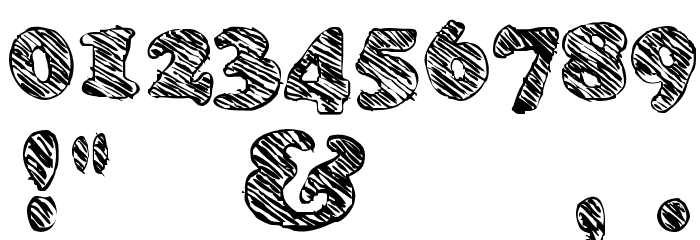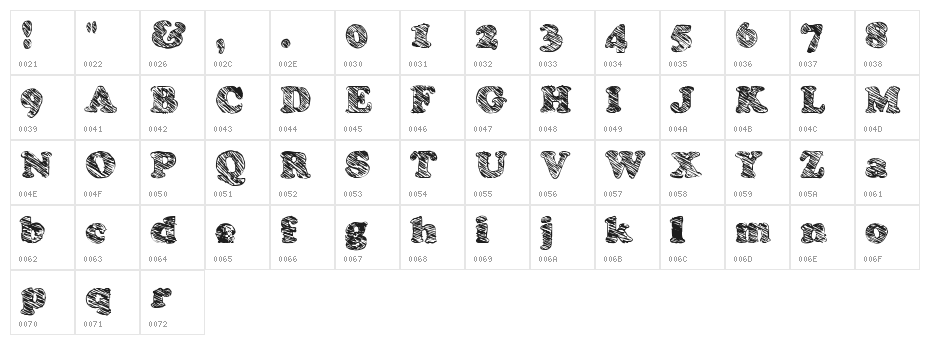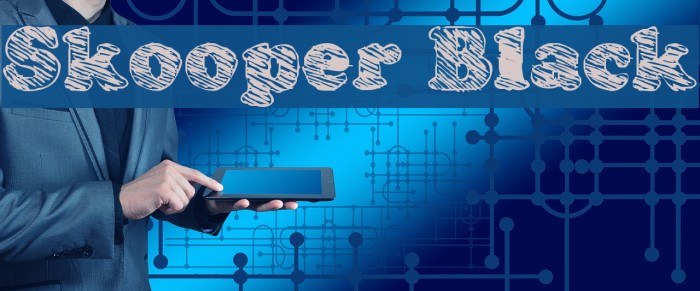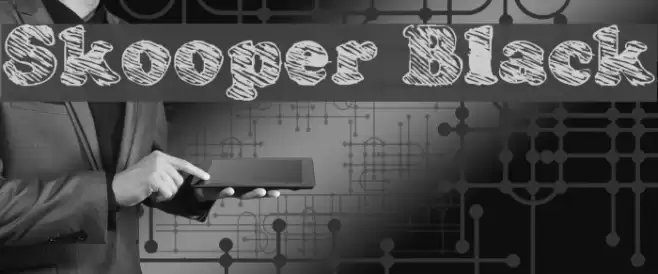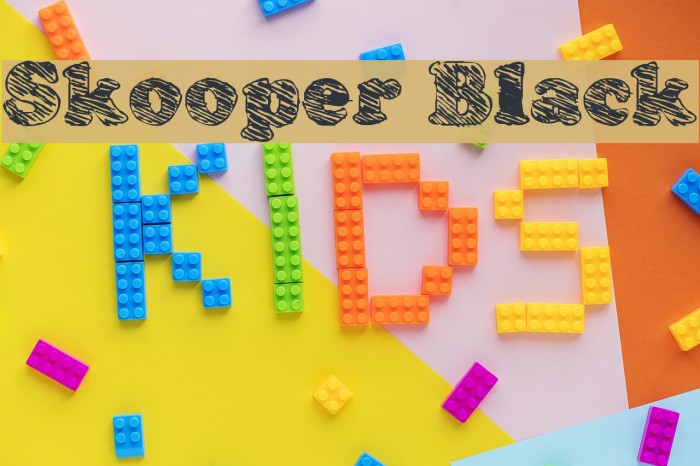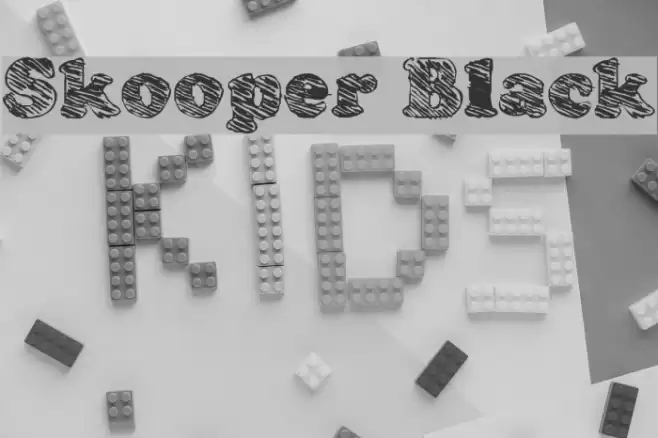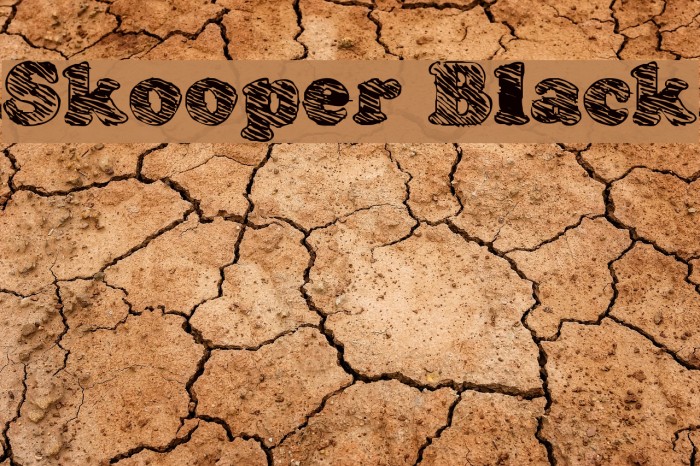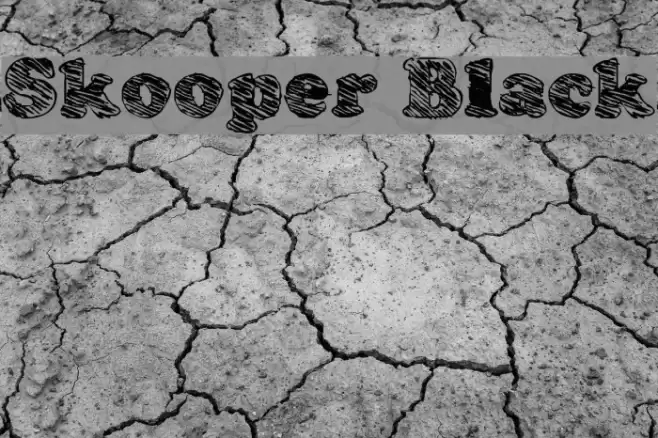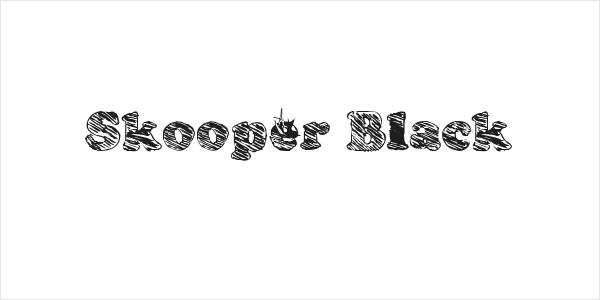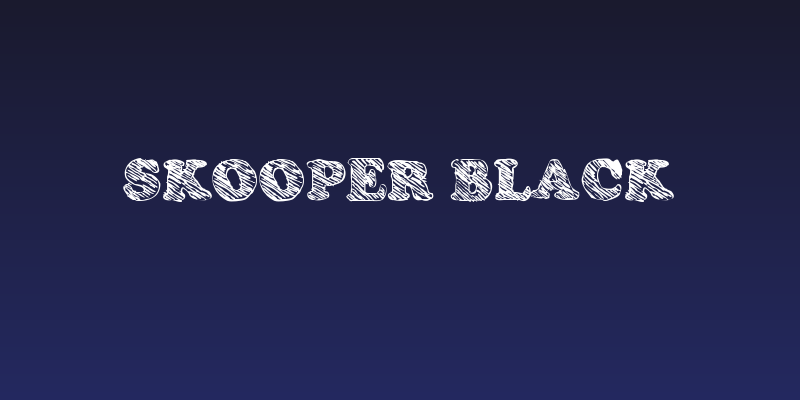
Skooper Black Font
Skooper Black Description
This font features a bold, playful style with a unique hand-drawn, sketch-like texture. Each character is filled with diagonal lines, giving it a dynamic and artistic appearance. The letters are thick and rounded, providing a sense of friendliness and approachability. The font maintains a consistent weight throughout, with a slightly condensed width that enhances its boldness. The contrast in stroke thickness is low, as the lines are uniform, contributing to its cohesive look. This font is ideal for projects that require a creative and informal touch, such as children's books, posters, or playful branding.
| Overall Style | Playful, Artistic, Hand-drawn |
| Proposed Projects | Ideal for children's books, playful posters, creative branding, and informal invitations. |